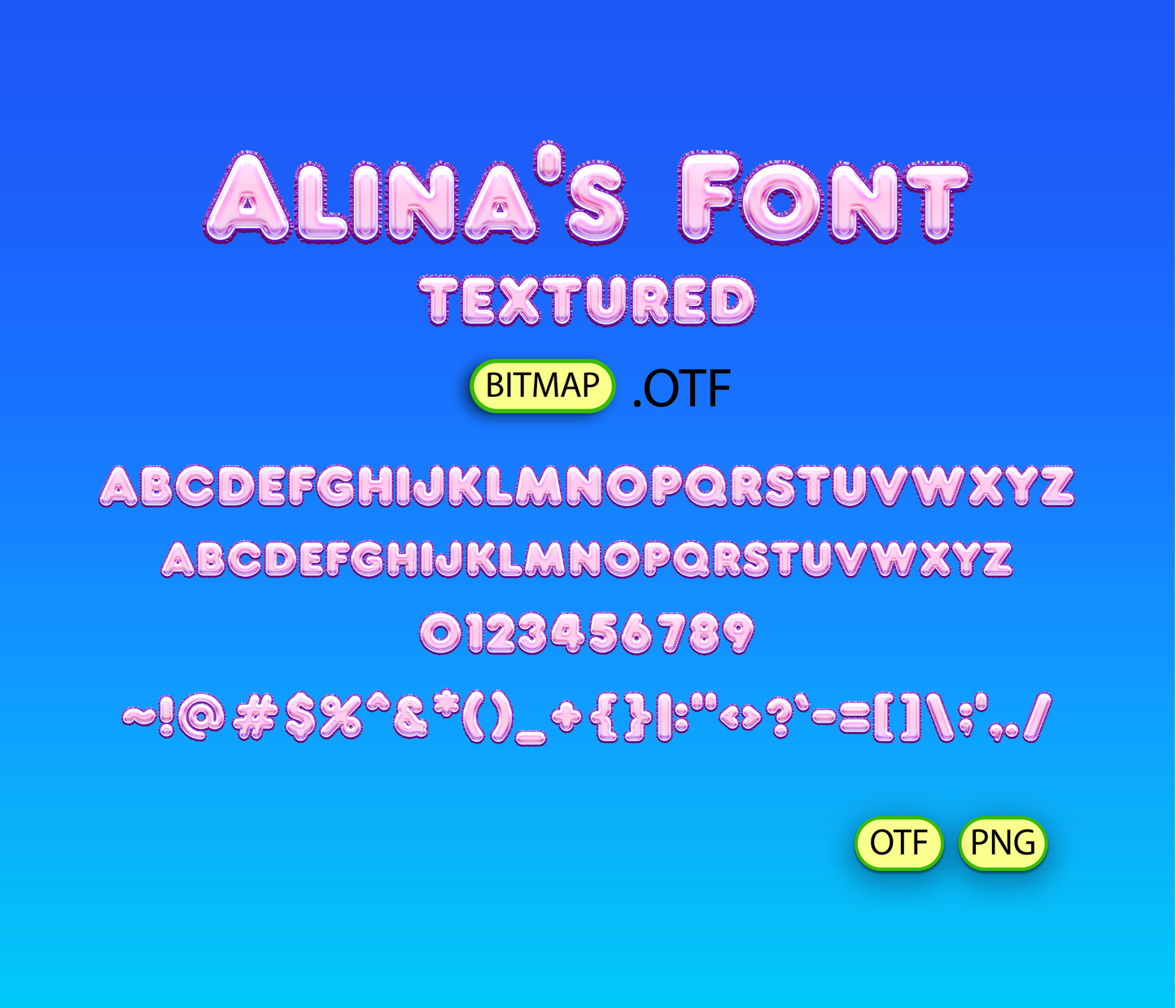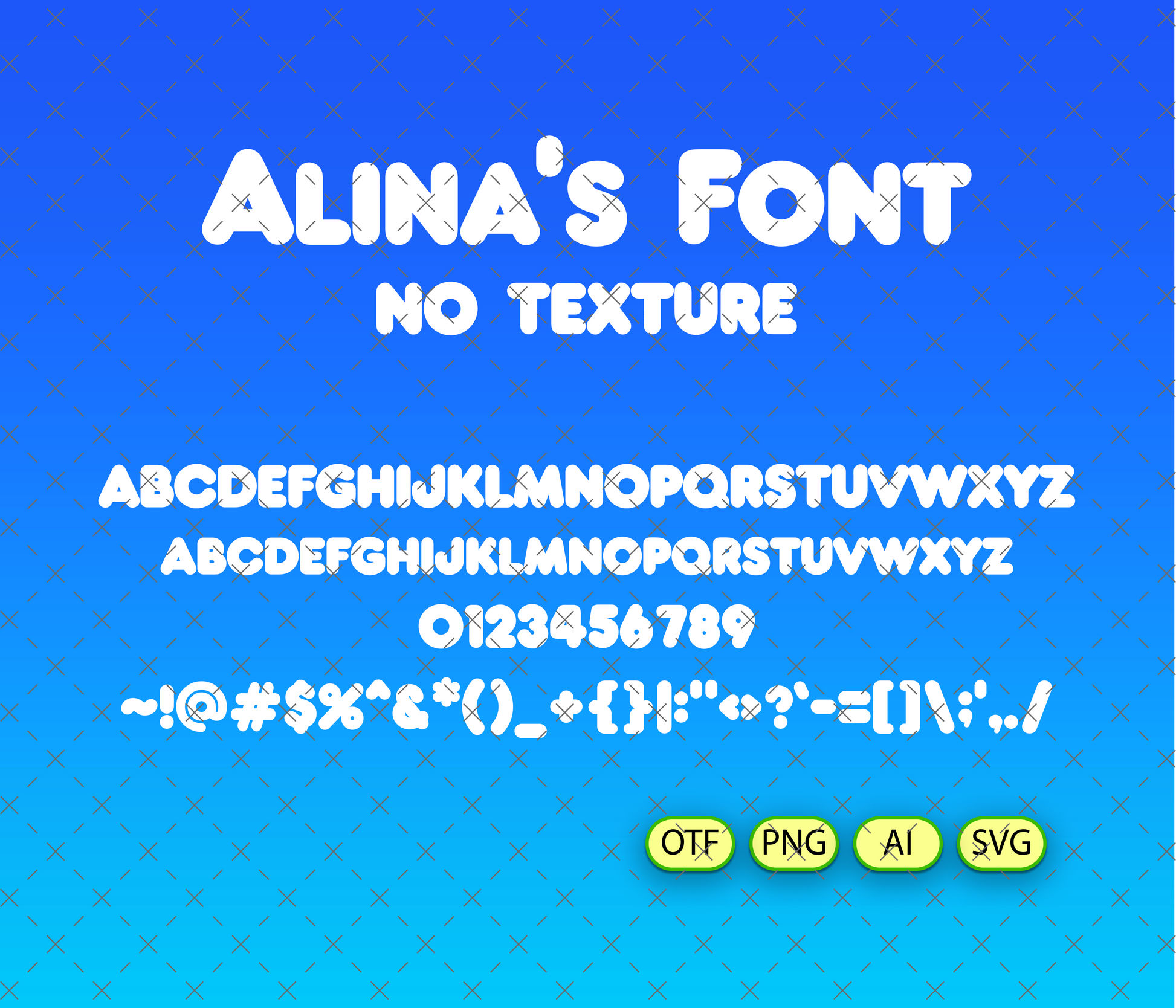
Bubble Burst Font Textured
Soar into the dazzling realm of sky-high festive expression with our Bubble Burst Font Textured, capturing the essence of puffed-up lettering delight and celebration-era graphic mystique. Perfect for celebration enthusiasts, themed event planners, content creators, and creative professionals, this font brings the bold, timeless spirit of lighthearted party stories to your projects. Create eye-catching invitations, merchandise, or digital content with the dramatic energy of vibrant festivity atmosphere narratives.
Cheerful Typography for Festive Design & Celebration Projects
Our Bubble Burst Font Textured features rounded, gleefully sculpted letterforms with shimmering inflated textures reflecting the world of lively party gatherings and enchanting fairground settings.
- Event Promotions: Deliver irresistible invitations, posters, and banners for birthday extravaganzas, seasonal festivities, and gatherings that embody the spirit of bubbly celebration entertainment
- Merchandise Design: Spectacular for t-shirts, posters, stickers, and accessories that capture the bouncy aesthetic of inflatable party culture themes
- Digital Media: Elevate websites, blogs, and social media to joyful new heights with lively headers and graphics that beam the brightness of jubilant celebration magic
- Creative Content: Breathe genuine playfulness into festive artwork, editorial designs, and creative projects inspired by cherished fairground and carnival tales
- Personal Projects: Sprinkle festive energy throughout scrapbooking, DIY crafts, and home decor inspired by the world of charming birthday celebration characters
Smooth Integration and Joyful Features
Our font embraces the world of lighthearted party stories and colorful festivity discovery, empowering your projects with its bold and timeless spirit. Whether crafting promotional materials, designing themed products, or adding a celebratory touch to personal projects, this font communicates the vibrant essence of bubble filled party entertainment. Ready to send joyful mystique soaring into your creations? This font is your most uplifting companion for eye-catching, impactful design.